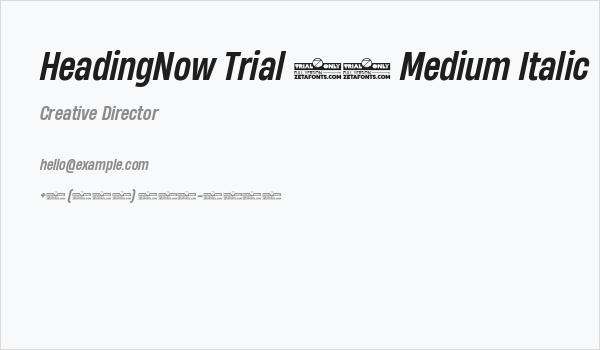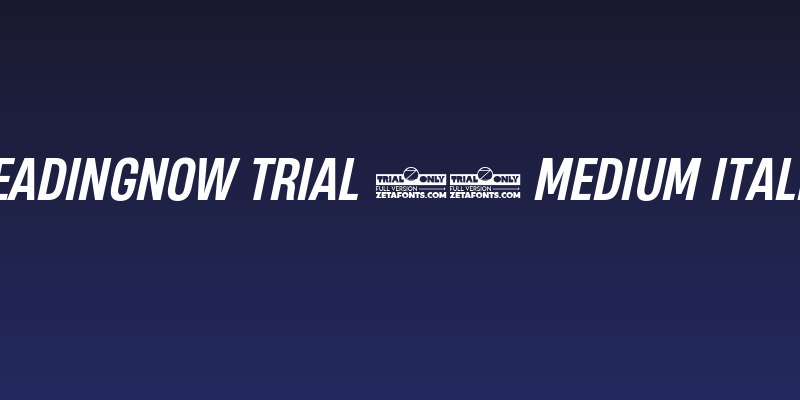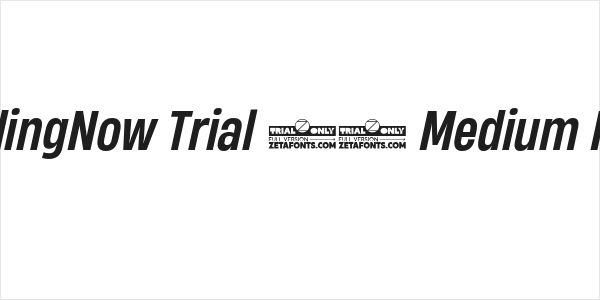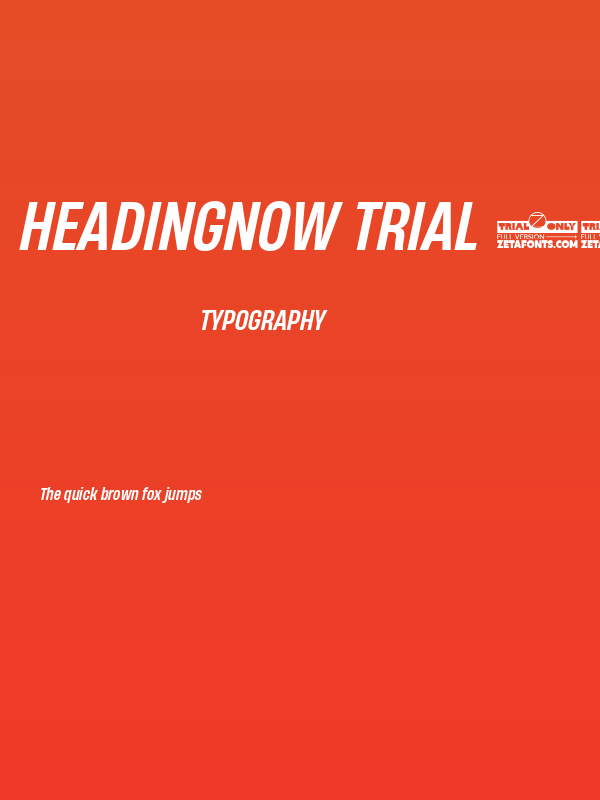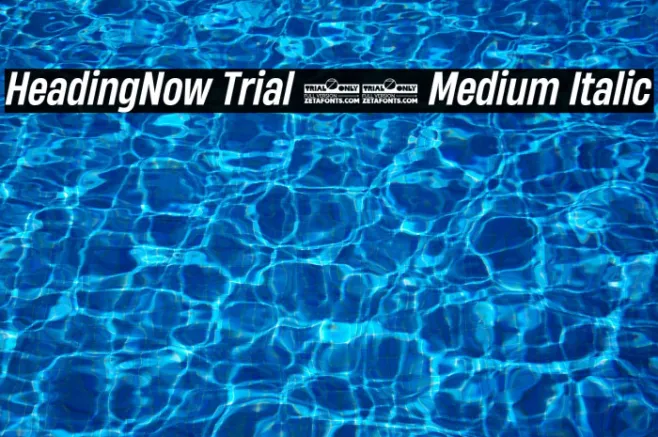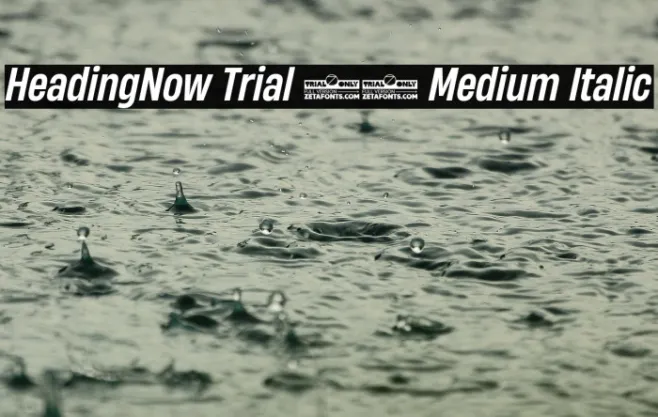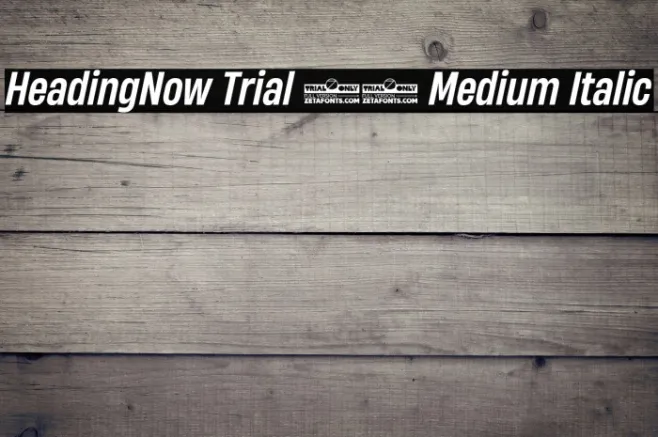
HeadingNow Trial 55 Medium Italic Font
HeadingNow Trial 55 Medium Italic Description
This font exhibits a modern and sleek design with a medium weight and italic style. The characters are slightly condensed, giving it a compact and efficient appearance. The strokes are consistent, with a medium contrast that enhances readability while maintaining a stylish look. The uppercase and lowercase letters are well-proportioned, and the numerals are clear and distinct. Special characters are included, making it versatile for various applications. Its italic nature adds a dynamic and forward-moving feel, suitable for contemporary design needs.
| Proposed Projects | Ideal for branding, advertising, and editorial design projects where a modern and dynamic look is desired. |